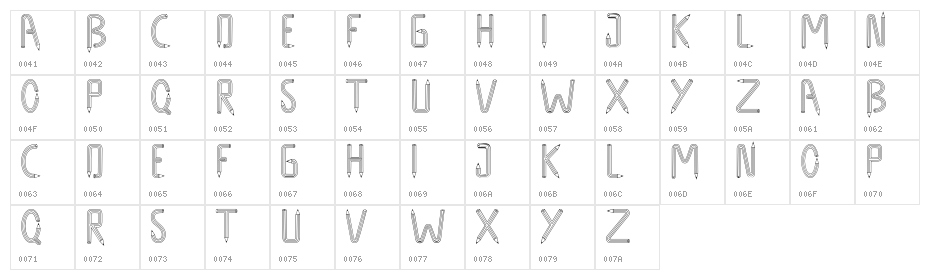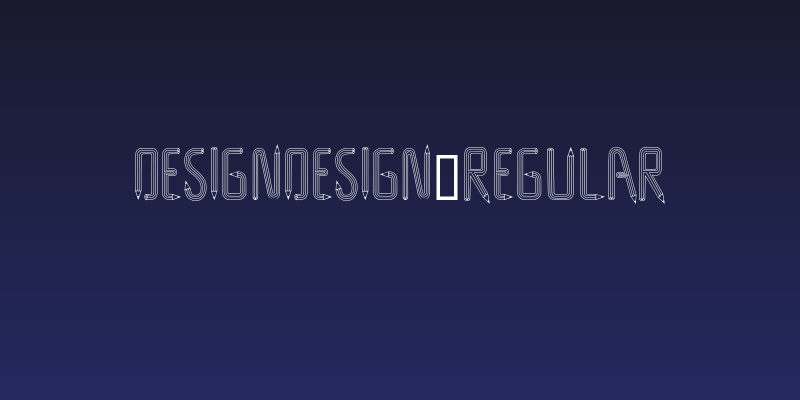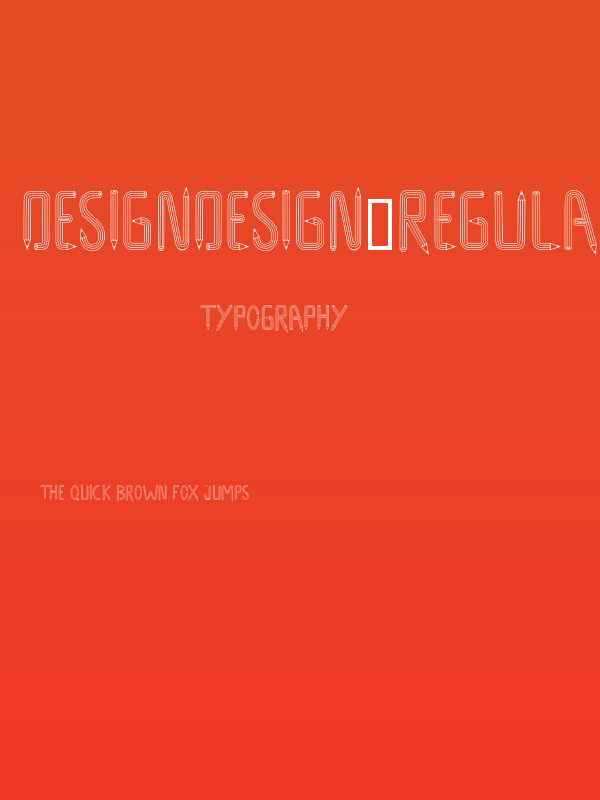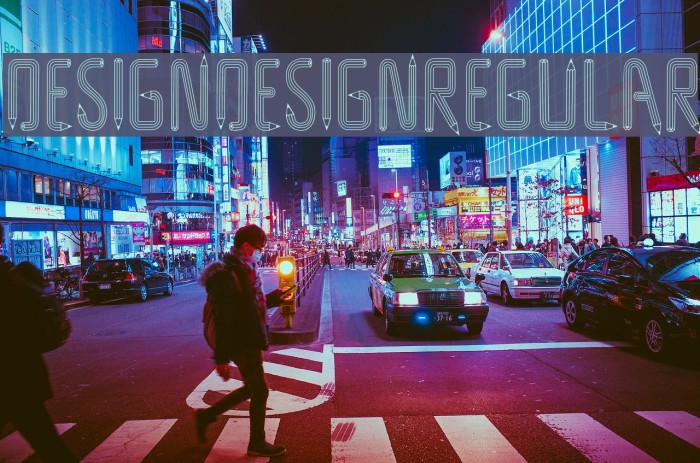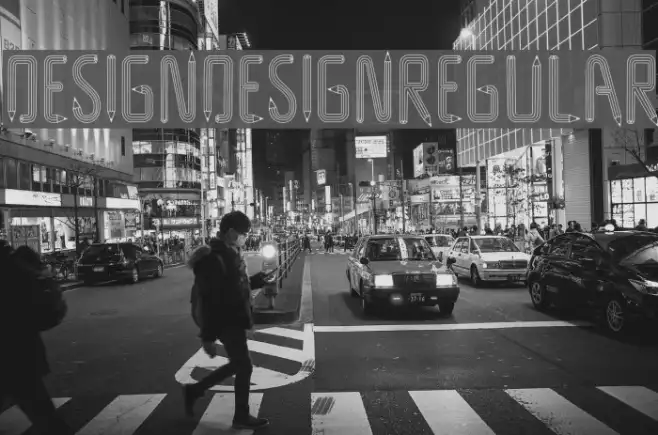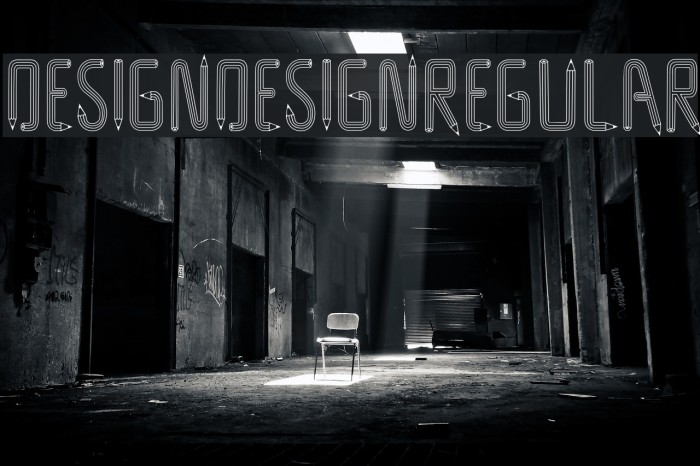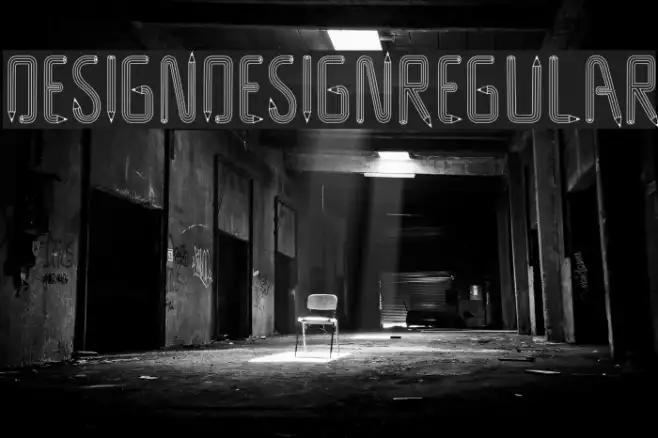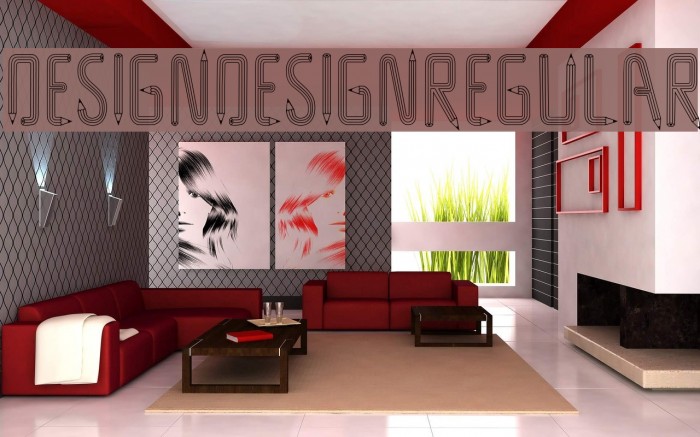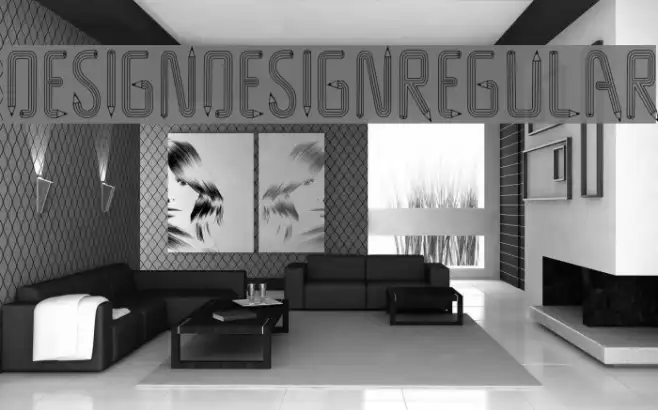
DesignDesign-Regular Font
DesignDesign-Regular Description
This font features a unique and creative design, where each character is stylized to resemble a pencil. The strokes are outlined, giving a three-dimensional effect that emphasizes the pencil motif. The letters are constructed with a consistent width, and the ends of each character are pointed, mimicking the sharpened tip of a pencil. This playful and artistic style makes it ideal for educational or creative projects. The uppercase letters are bold and prominent, while the lowercase letters maintain the same thematic design. The numbers and special characters follow the same pencil-inspired aesthetic, ensuring a cohesive look across all elements.
| Overall Style | Creative, Artistic |
| Proposed Projects | Perfect for educational materials, children's books, art projects, and creative branding. |